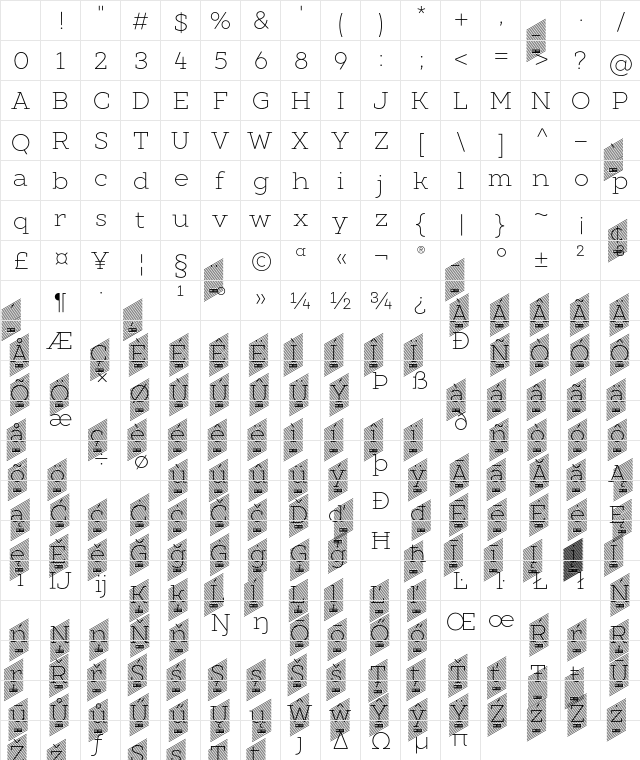
Complete XXII Geom Slab DEMO Light glyph index. Displaying only characters natively supported by XXII Geom Slab DEMO Light font.
XXII Geom Slab DEMO features prominent, blocky serifs that give it a confident, grounded presence - equally at home in editorial settings and bold branding work. Its slender proportions lend an understated elegance to any composition.
Pro Tip: Use XXII Geom Slab DEMO for headlines and subheadings where its slab serifs can make an impression. It also holds up well in mid-size body copy thanks to its sturdy construction.